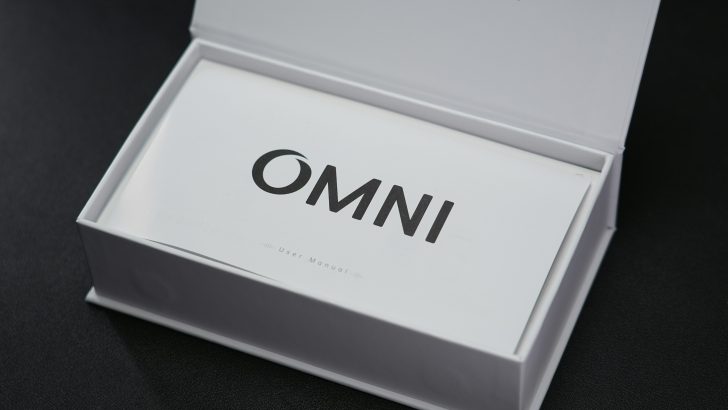
Packaging is often the first interaction customers have with a product. Before they experience the quality inside, they judge the packaging design.
One of the most important elements of successful packaging is typography. The right font helps products stand out, communicate quality, and create a memorable brand experience.
Whether you’re designing food labels, coffee bags, cosmetic boxes, perfume packaging, or handmade product tags, choosing the right font can make a significant difference.
Why Typography Is Important in Packaging Design
Typography influences buying decisions.
Customers quickly judge whether a product feels:
- Premium
- Handmade
- Organic
- Luxury
- Modern
- Traditional
A carefully selected font helps strengthen these impressions.
What Makes a Great Packaging Font?
The best packaging fonts share several important qualities.
Easy to Read
Customers should instantly understand product information.
Strong Brand Personality
Typography should reflect the product’s identity.
Flexible Across Materials
The font should work well on boxes, labels, bottles, and digital marketing.
Timeless Appeal
Classic typography helps products remain attractive over time.
Best Font Styles for Packaging Design
Display Fonts
Display fonts create visual impact and help products stand out on crowded shelves.
Perfect for:
- Food products
- Beverage brands
- Artisan packaging
Elegant Serif Fonts
Serif fonts communicate luxury and sophistication.
Ideal for:
- Perfume brands
- Cosmetics
- Premium packaging
Handmade Fonts
Handmade typography creates an authentic and organic feeling.
Best for:
- Coffee brands
- Bakery products
- Craft businesses
Minimal Sans Serif Fonts
Simple typography creates a clean and modern appearance.
Perfect for:
- Skincare products
- Technology products
- Lifestyle brands
Packaging Design Trends in 2026
Typography trends continue to evolve.
Minimal Luxury
Simple layouts with elegant fonts remain popular.
Sustainable Branding
Natural and organic typography supports eco-friendly products.
Artisan Packaging
Consumers appreciate handcrafted visual identities.
Bold Product Labels
Large typography helps products capture attention quickly.
Common Typography Mistakes
Avoid these mistakes:
- Using fonts that are difficult to read
- Combining too many typefaces
- Choosing trendy fonts with short lifespans
- Ignoring product positioning
- Forgetting packaging scalability
How to Choose the Right Packaging Font
Before selecting a typeface, consider:
- Who is your target customer?
- Is your product premium or affordable?
- Will the font work on small labels?
- Does the typography match your brand story?
The answers will help you make the best decision.
Final Thoughts
Typography is one of the most powerful tools in packaging design. The right font can transform an ordinary product into a memorable brand that customers recognize and trust.
Whether you’re creating packaging for coffee, beauty products, food brands, or luxury goods, investing in quality typography will help your products stand out in a competitive market.